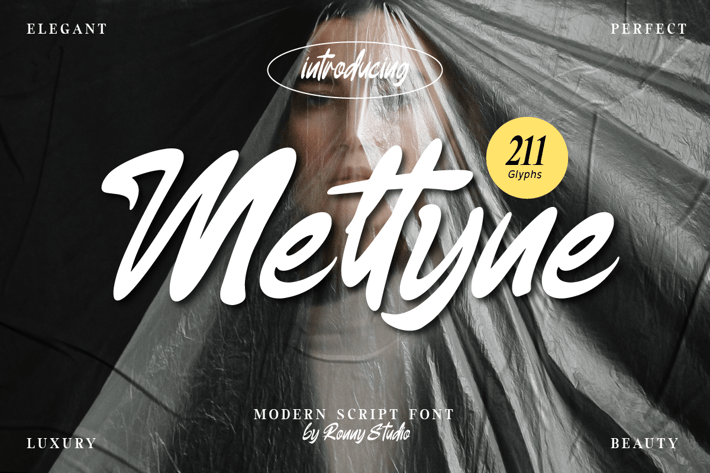
Meltyne - Modern Script Font
Meltyne Font is created with a natural modern script with a fresh modern script providing a stylish script guaranteed to add eye-catching appeal to your logo designs, brand imagery, quotes, product packaging, social media posts, etc
- Uppercase & Lowercase
- numbers & punctuation
- Alternate & Ligature
- Multilingual